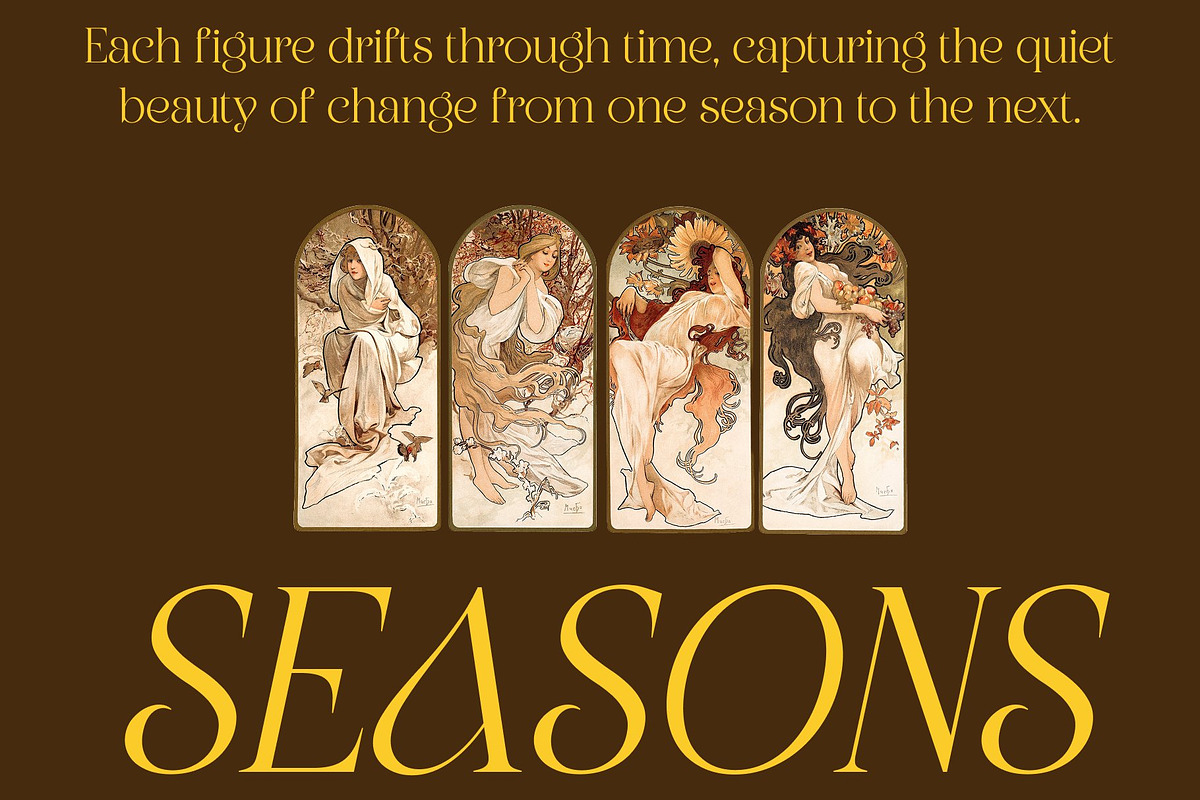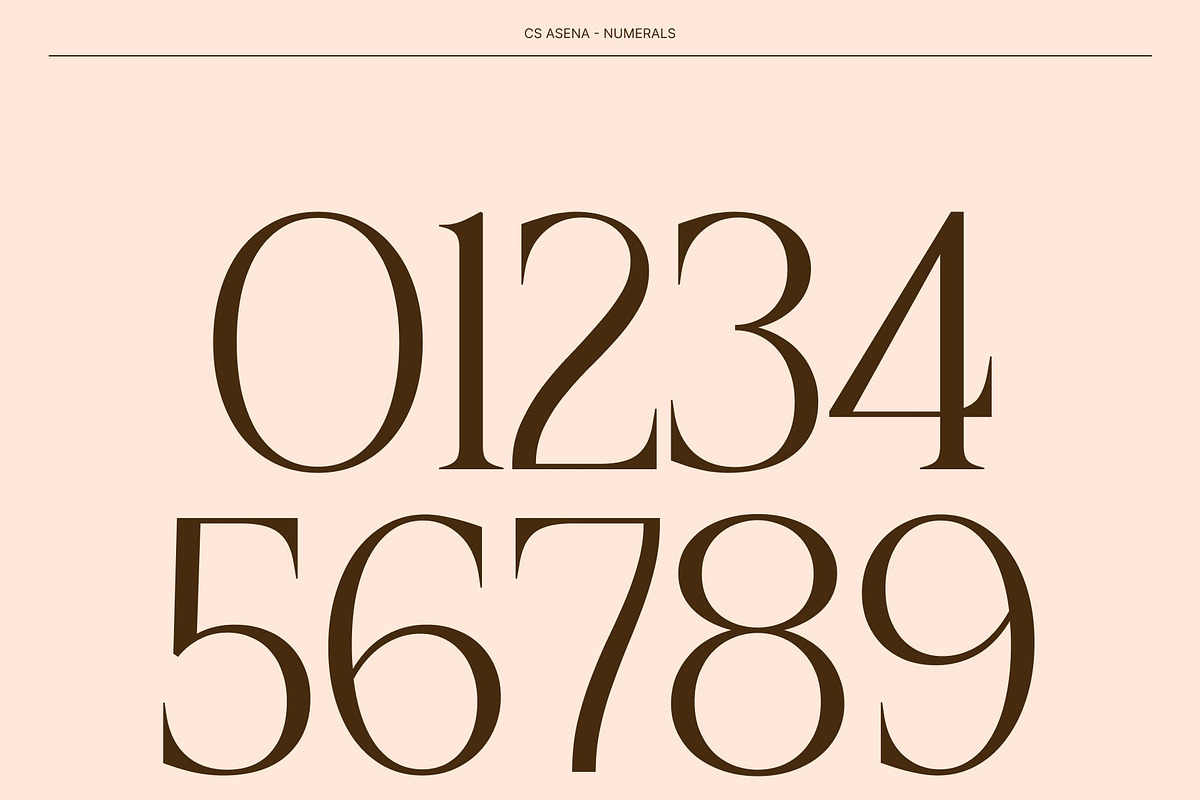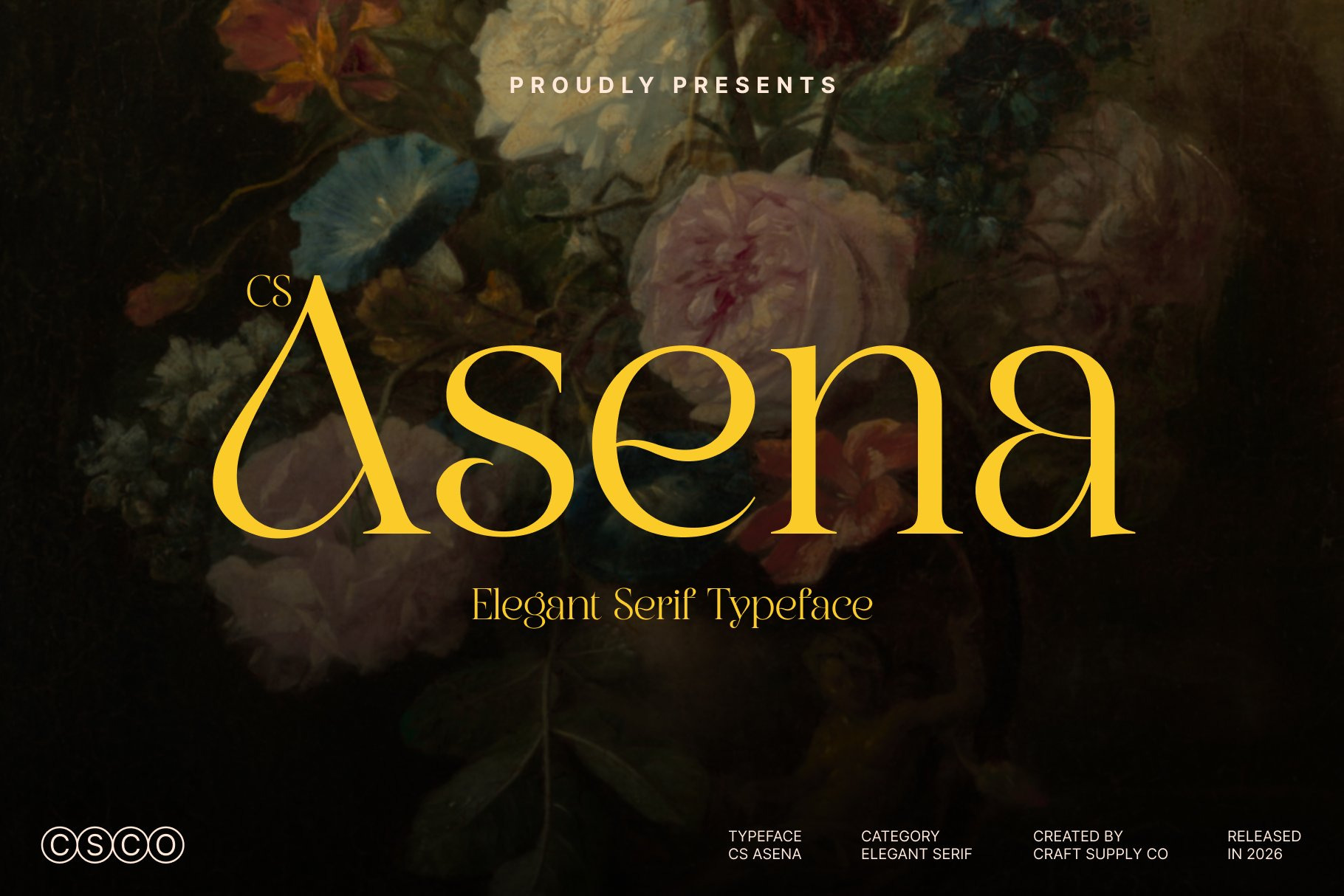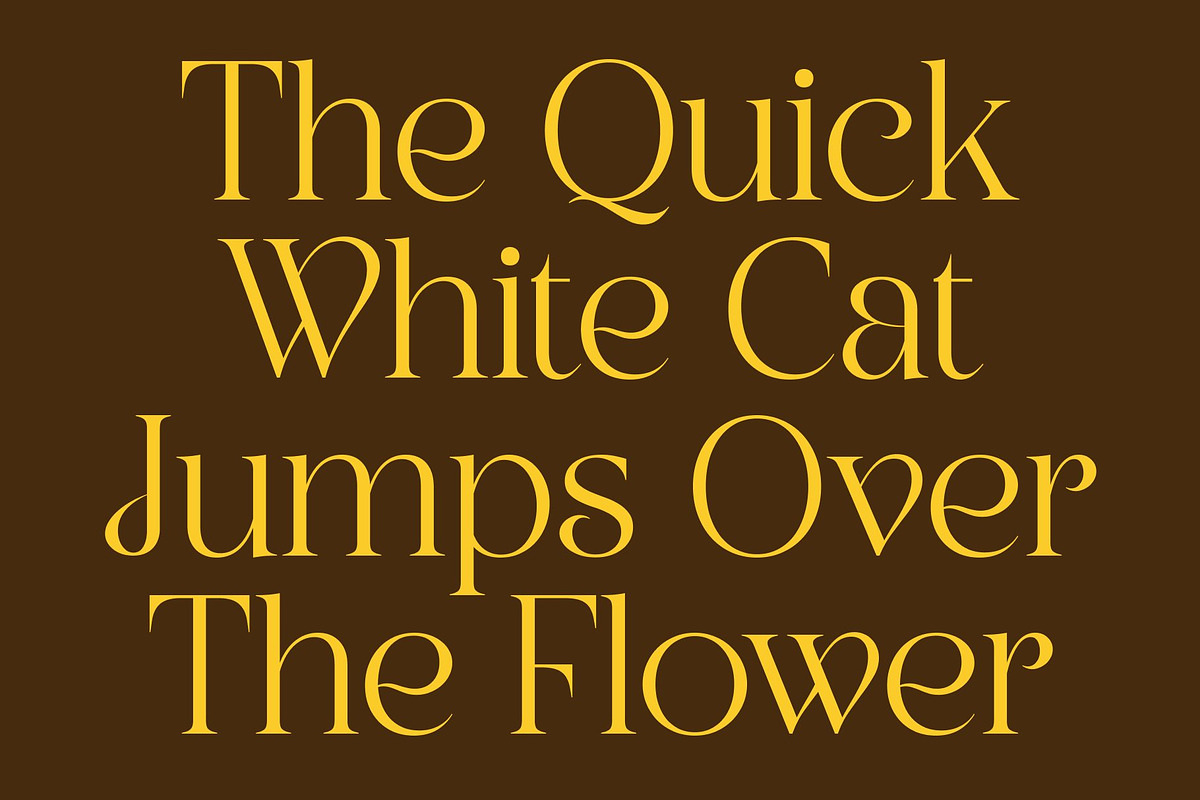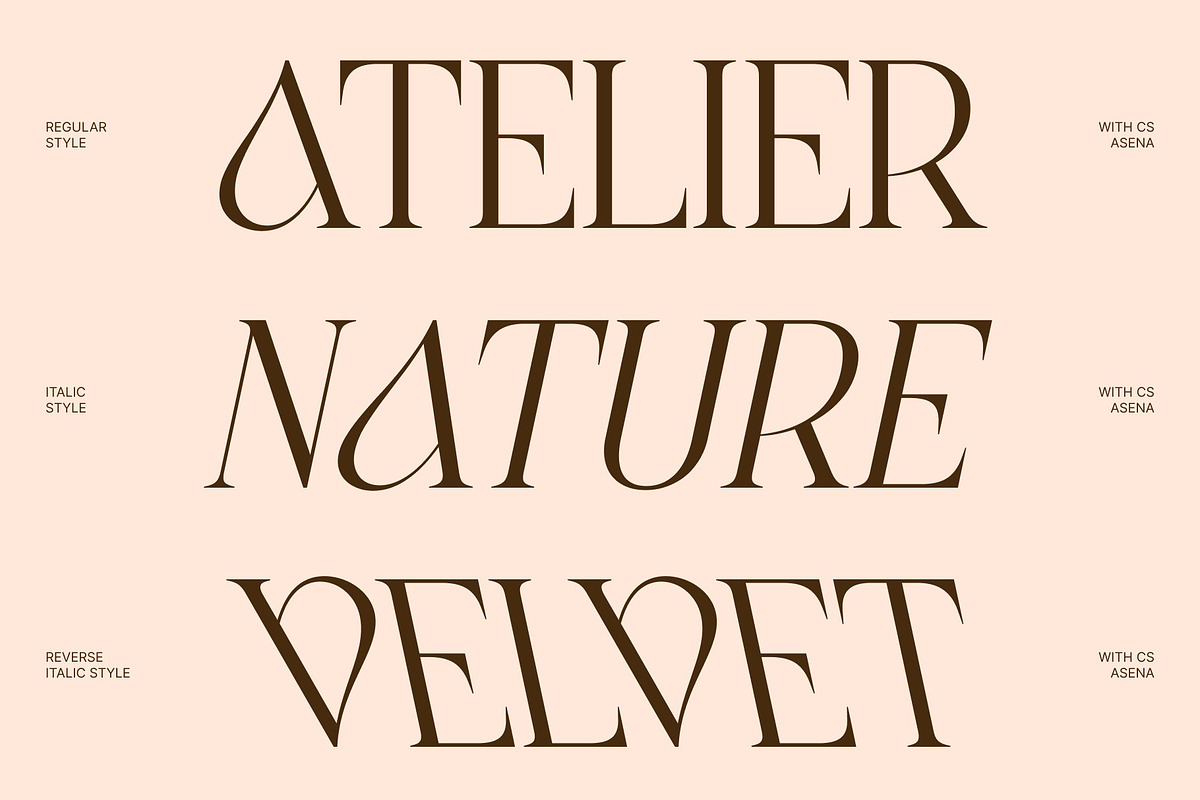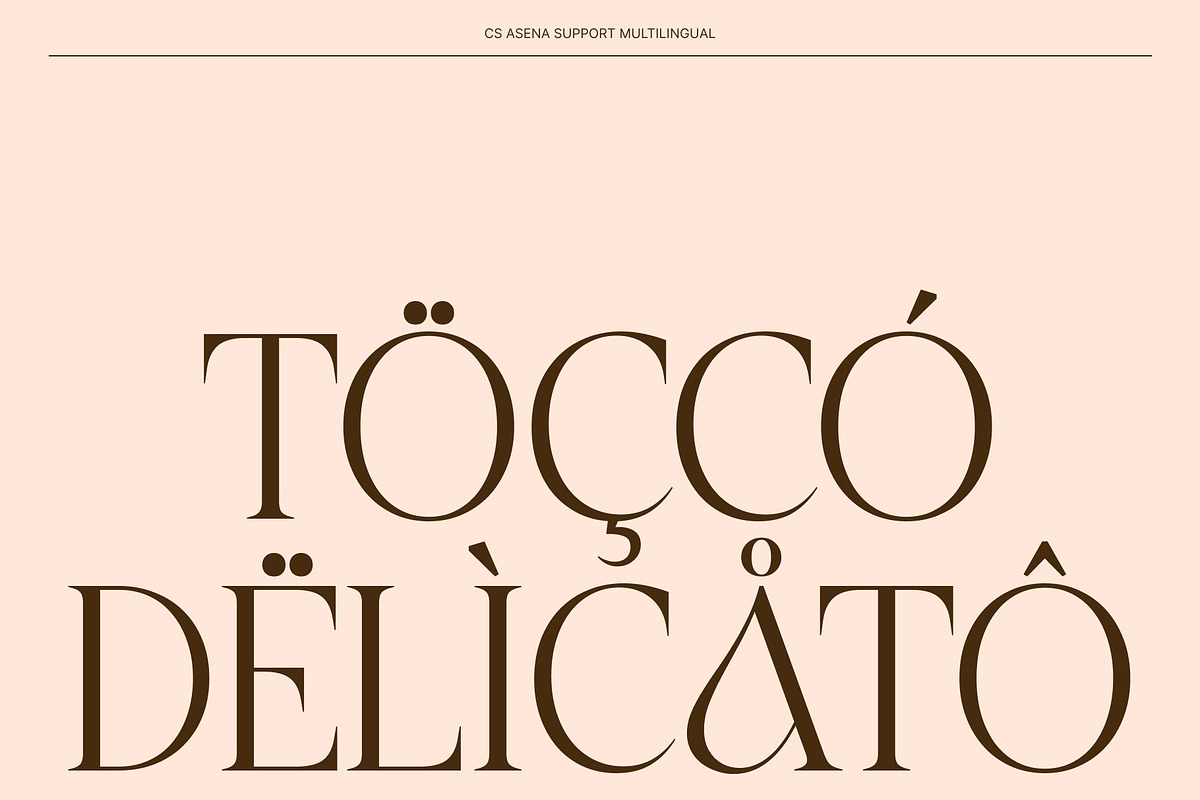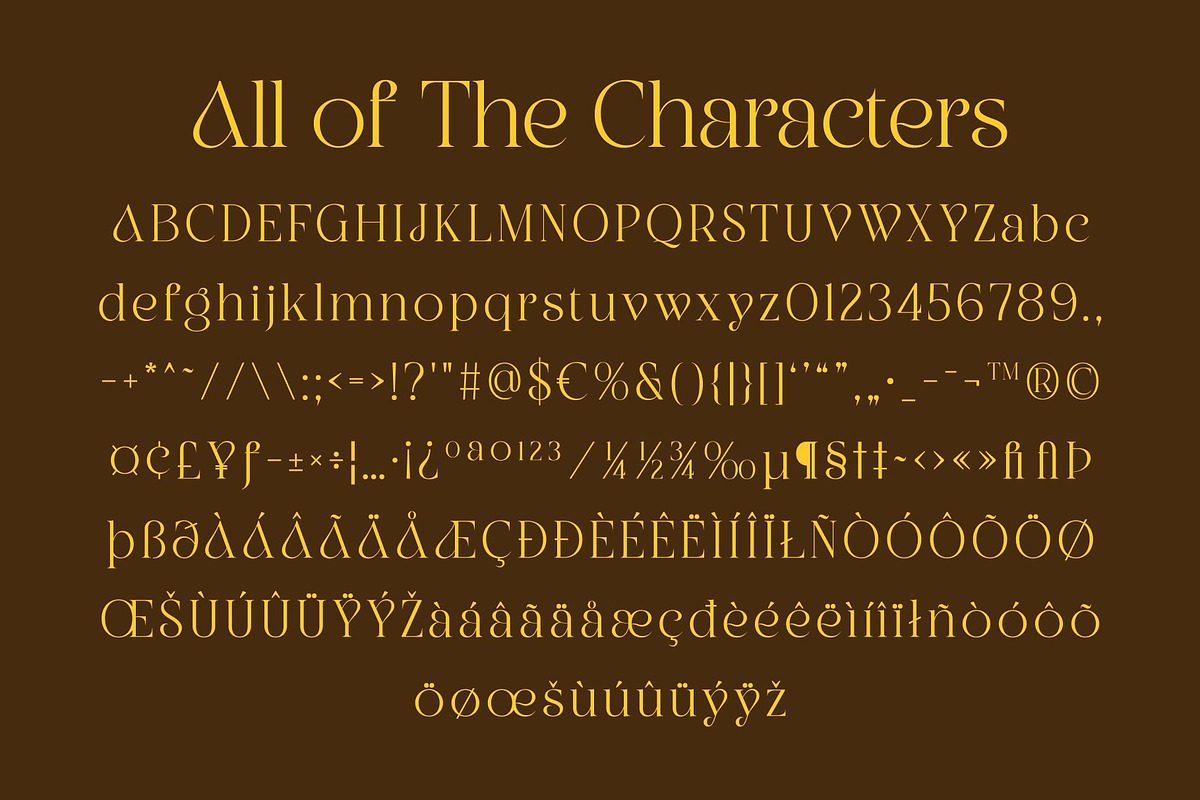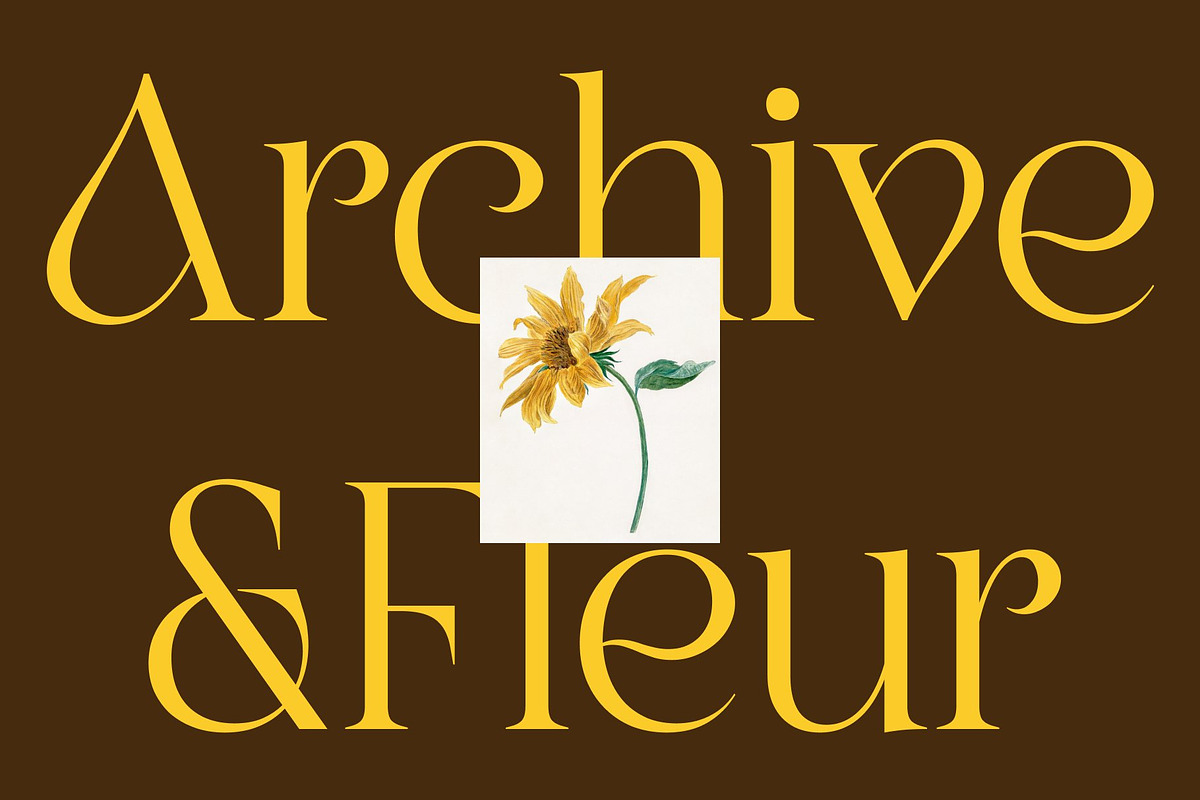
CS Asena – Elegant Serif Font
CS Asena – Elegant Grace with Modern Sophistication
Elegant Serif Font with High-End Artistic Character This is an elegant serif font designed to deliver a refined, high-end appearance infused with artistic elegance. Its graceful curves and carefully sculpted letterforms create a luxurious visual tone that feels timeless yet expressive. Blending classic serif foundations with stylistic and modern nuances, offers a sophisticated typographic voice that elevates refined and premium design projects.
Refined Curves Inspired by Art Nouveau Flow Inspired by the organic flow of Art Nouveau, features soft, fluid curves and harmonious proportions that echo natural forms and decorative artistry. These refined details bring a sense of movement and elegance to each character, creating a font that feels both ornamental and controlled. The Art Nouveau influence adds character and visual richness without sacrificing clarity or balance.
Classic Elegance with Modern Sensibility This font seamlessly bridges classic typographic tradition with contemporary refinement. Its elegant serifs and stylish contours provide a timeless foundation, while modern nuances ensure relevance across today’s design landscape. This balance makes versatile and expressive, suitable for both display use and sophisticated text layouts where elegance and readability are equally important.
Perfect for Editorial, Fashion, and Branding Designed for premium applications, this font is perfectly suited for advanced book design, editorial layouts, packaging, fashion visuals, and high-end branding. Its elegant serif structure enhances headlines, body text, and brand identities with artistic sophistication and luxury appeal.
- CS Asena Regular
- CS Asena Italic
- CS Asena Reverse Italic